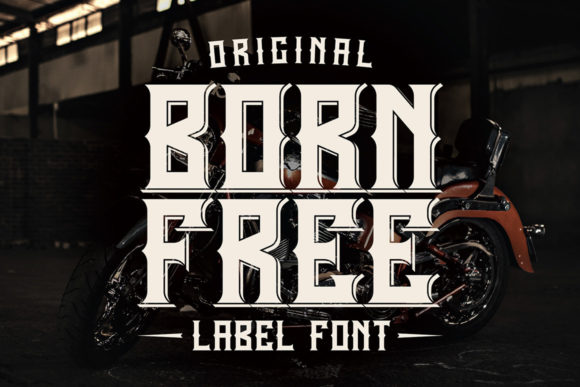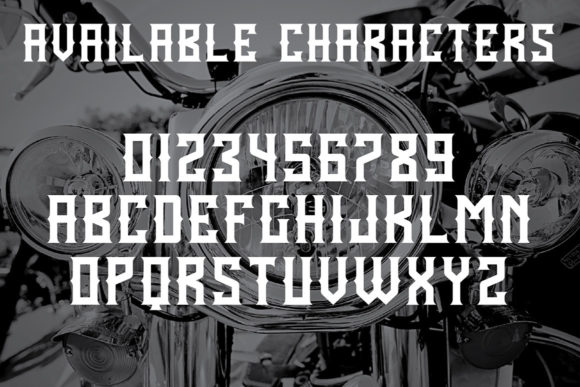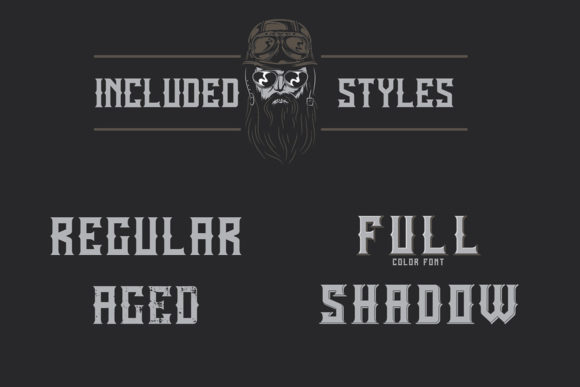
Born Free Font: A Bold Retro Display Font for Poster & Logo Design
About the Born Free Font
Get ready to be inspired by Born Free Font, a fresh and dynamic typeface for modern creators. Born Free is an assertive, retro styled and fierce display font. It will look stunning on any poster flyer or print.
Born Free’s assertive style makes it ideal for headlines, posters, and branding projects requiring a strong visual impact. Its retro aesthetic lends itself well to vintage-inspired designs or projects aiming for a bold, nostalgic feel. However, its condensed letterforms and high contrast are less suitable for body text or UI elements where readability is paramount.
This font’s fierce personality pairs well with clean sans-serif fonts like Open Sans or Lato for a balanced contrast, or a more playful script like Pacifico for a vintage-inspired design. For a modern twist, consider pairing it with a geometric sans-serif like Montserrat.
Born Free projects a rebellious, confident energy, making it perfect for brands targeting a younger demographic or those with a strong, individualistic identity. Avoid using it for projects requiring sophistication or subtlety.
Born Free Font Usage Examples
Born Free Font Example